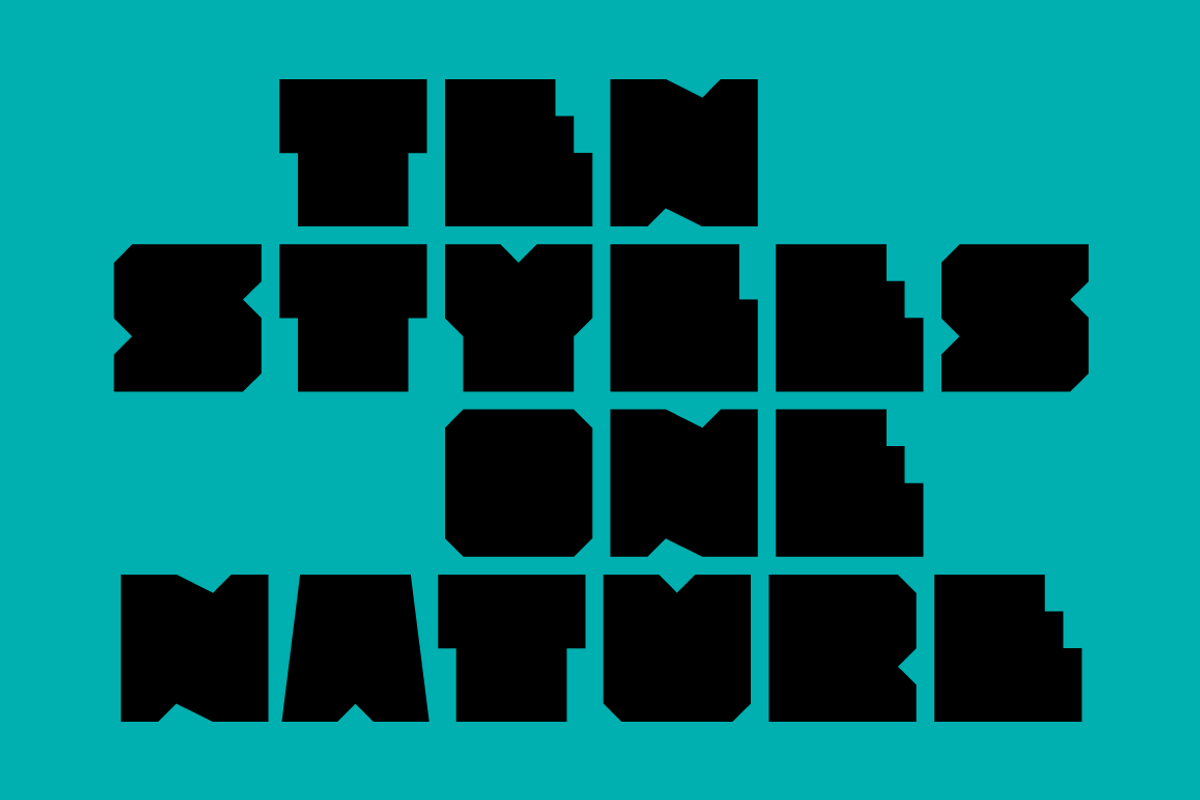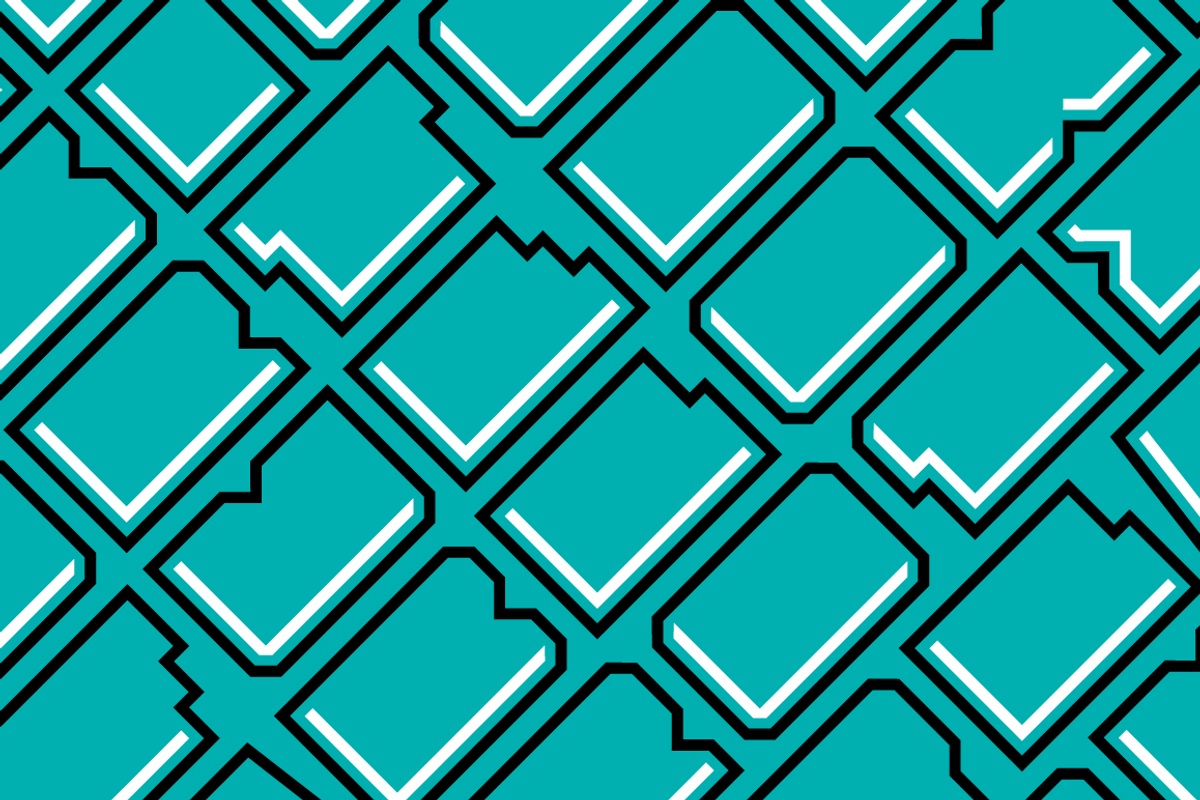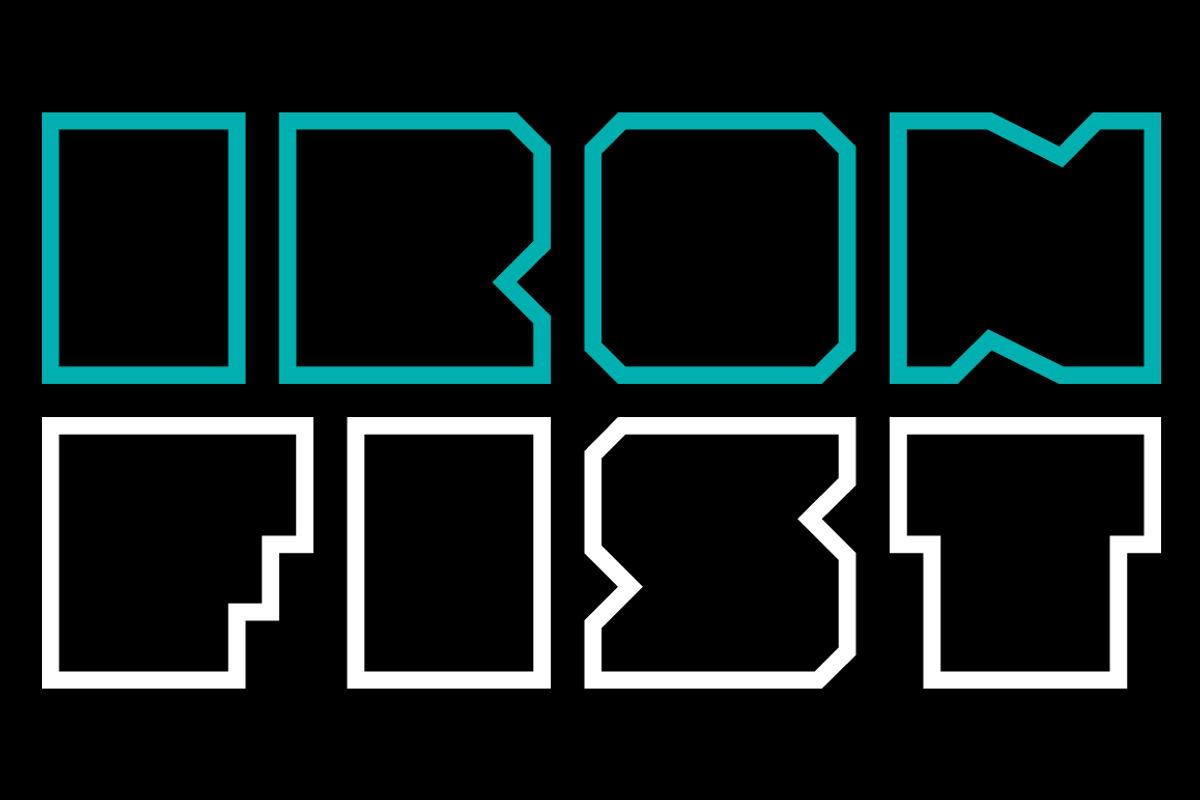
Solida Font Family
Solida Font Family by Graviton Font Foundry is a font selected for branding, posters, packaging, typography.
Why Solida Font Family is worth a look
Solida Font Family by Graviton Font Foundry fits naturally into Branding, posters, packaging, typography.